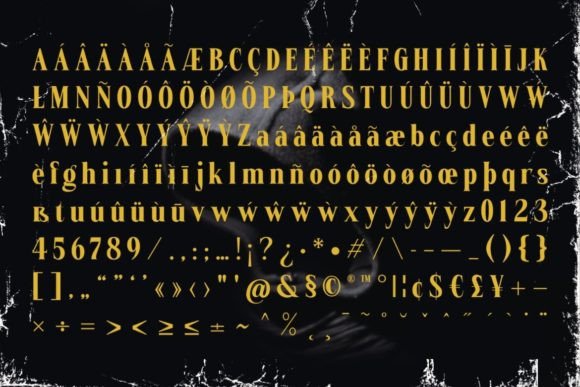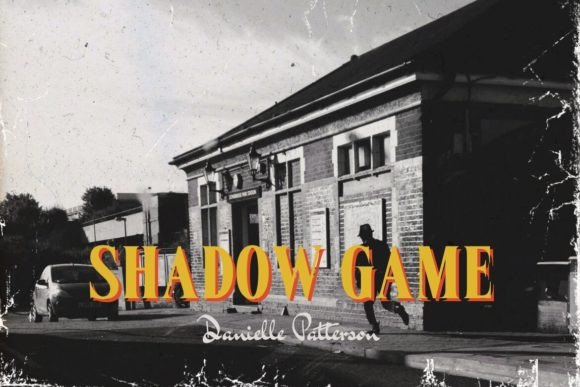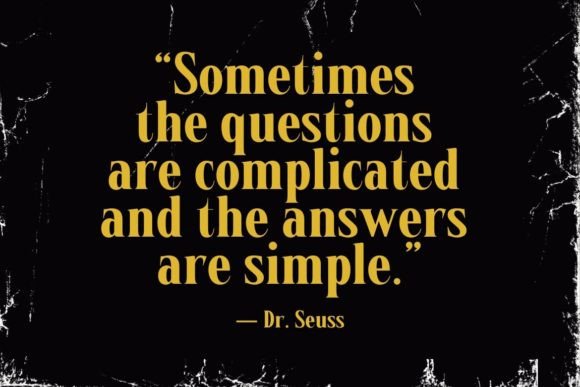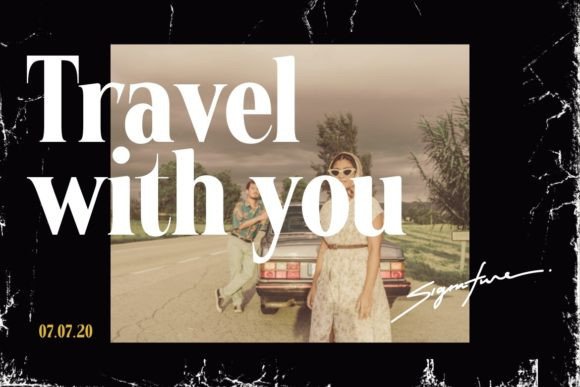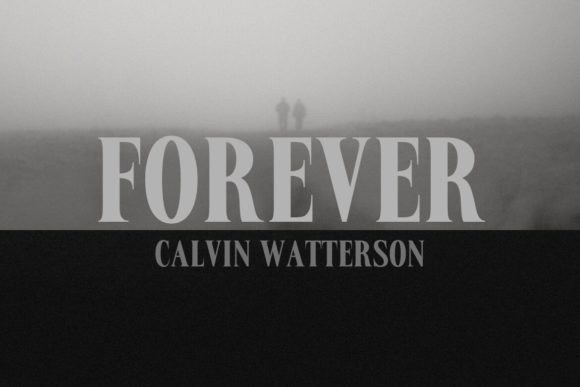
Introduction to Phantoms Font
As designers, we’ve all been there – staring at a blank canvas, trying to bring our creative vision to life. The perfect font can make all the difference, setting the tone for a project and elevating it to new heights. For those seeking a high-quality design resource, the Phantoms Font is a game-changer.
With its elegant, narrow-serif letters, Phantoms Font has a timeless, vintage look that’s perfect for giving your designs a classic feel. Whether you’re working on a special project or just need a reliable font for your next creative endeavor, Phantoms Font is an excellent choice. Its versatility and sophistication make it a valuable asset for designers looking to add a touch of sophistication to their work.
Key Features of Phantoms Font
- High-quality design resource with a unique, modern aesthetic, perfect for creative projects.
- Features a transparent background, making it ideal for use on images or other design elements with complex backgrounds.
- Unique characteristics include a bold, eye-catching design and a wide range of customization options.
- Perfect for use in a variety of creative projects, including logos, graphics, and typography-based designs.
Honest Review: Phantoms Font
As a designer, I’m always on the lookout for high-quality design resources that can elevate my creative project. Recently, I stumbled upon the Phantoms Font, and I’m excited to share my honest review with you.
What works well: ✨ The Phantoms Font has a unique and eerie aesthetic that’s perfect for projects that require a touch of the supernatural. The font is highly customizable, and the transparent background makes it easy to integrate into any design. I also appreciate the fact that it’s available for free download, making it an excellent resource for designers on a budget.
Limitations: ⚠️ While the Phantoms Font is a great addition to any design arsenal, it may not be suitable for all types of projects. The font’s eerie vibe may not be suitable for family-friendly or conservative audiences. Additionally, the font may not be as versatile as other design resources, but this is a minor complaint.
Overall, I’m impressed with the Phantoms Font and would highly recommend it to designers looking for a unique and high-quality design resource. Its free download and transparent background make it an excellent choice for creative projects.
- Unique and eerie aesthetic
Tips for Getting the Most Out of Phantoms Font
Use the transparent background feature to create stunning graphics with a transparent overlay.
Experiment with different font sizes and styles to add depth and visual interest to your design.
Phantoms Font is perfect for:
Creating eye-catching social media graphics
Designing unique website headers
Adding a touch of elegance to your presentations